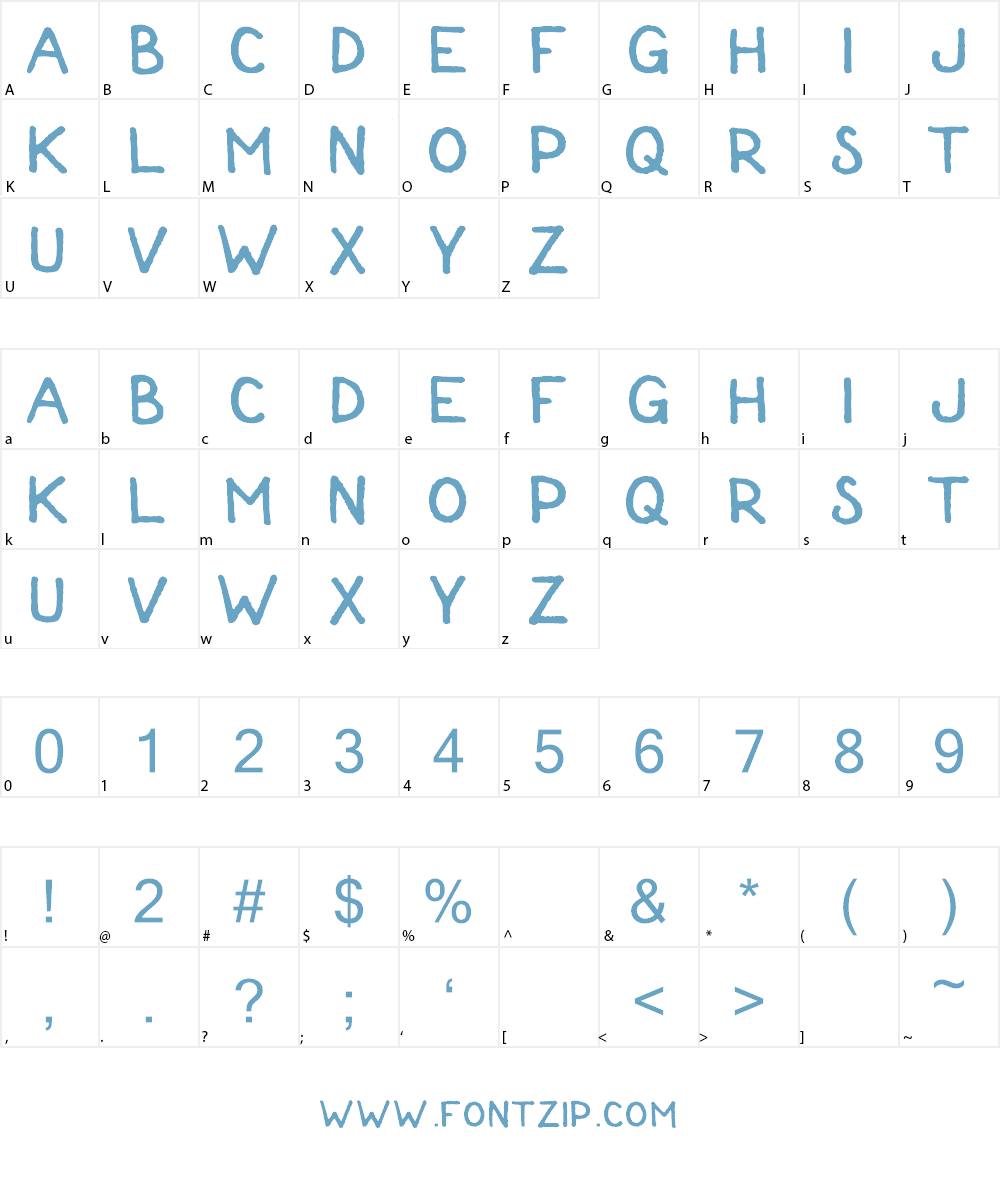
Shipmates is the ultimate tattoo flash script. The typeface has been designed with a natural, uneven edge so as to blend seamlessly with any scanned flash painting project. Over 57 infill characters have been included, providing unmatched authenticity and serious flexibility to you the designer. Shipmates is the only font to make your digital flash paintings come alive, a full toolkit to get your prints ready for production.